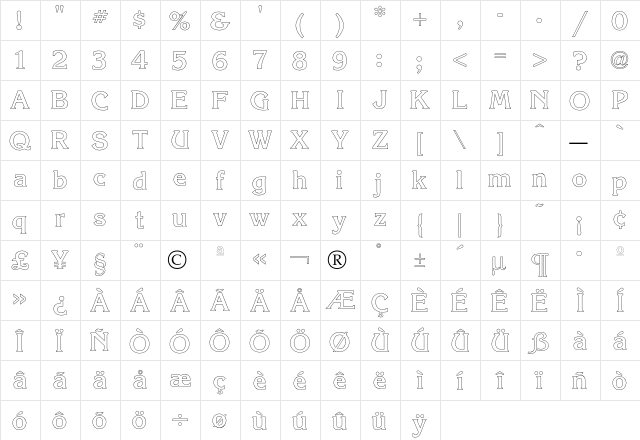
Korinna Outline
Design Context for Korinna Typeface
Korinna brings ornamental detail and strong personality to headlines and identities, where visual impact matters more than quiet functionality.
Font Pairing: Pair with a clean neutral sans-serif for body copy to let Korinna's character lead without overwhelming the composition.
Pro Tip: Use Korinna exclusively at display sizes — it was designed to be seen, not read at length. Let a neutral companion handle body copy.